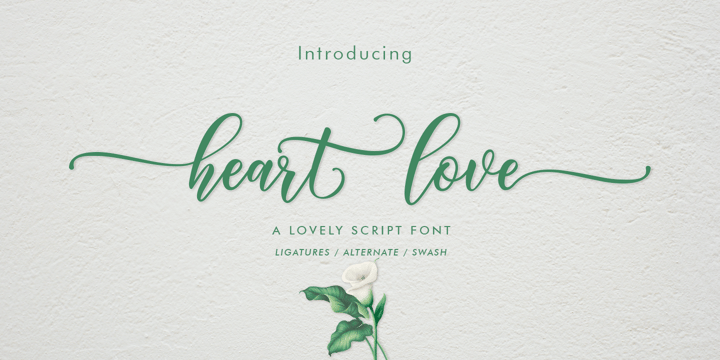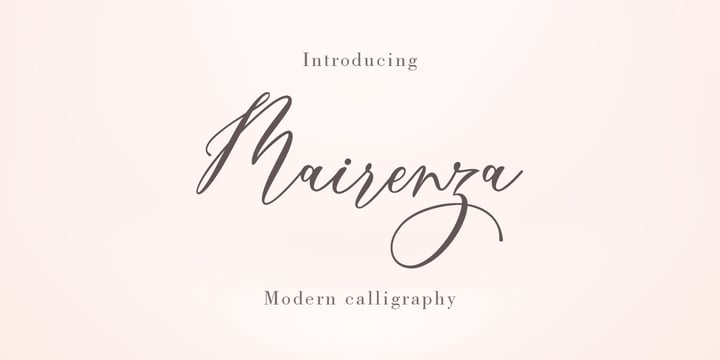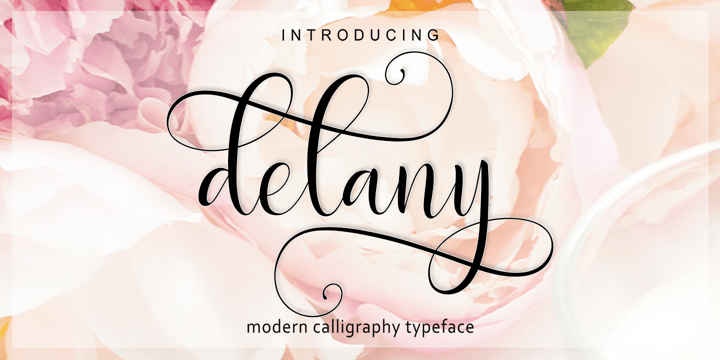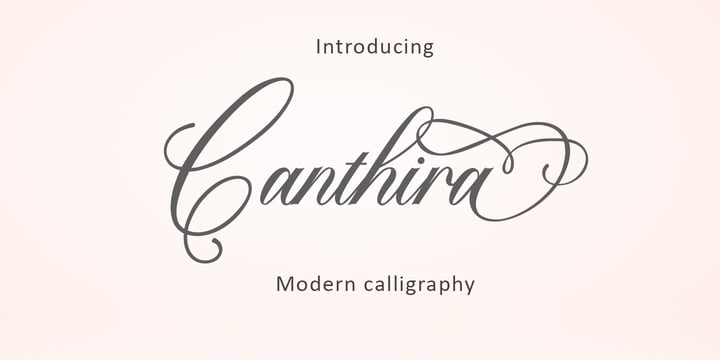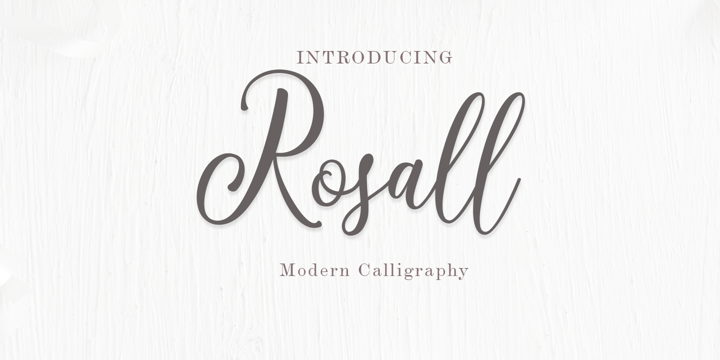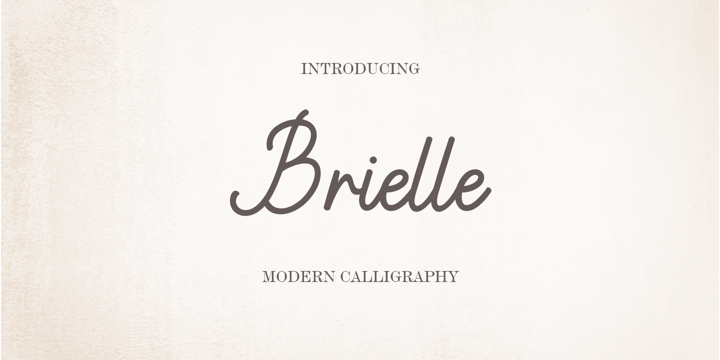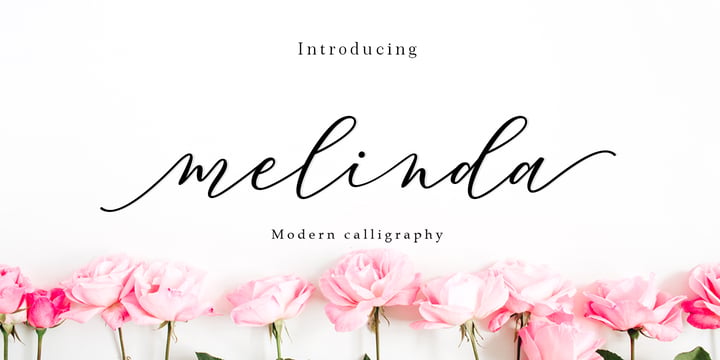
The Crafter Bundle Modern Script Font Collection
The Crafter Bundle – Modern Script Font Collection
Introducing The Crafter Bundle, a carefully curated collection of 45 elegant and versatile script fonts designed to elevate your creative projects. Each font is crafted with a unique handwritten style, combining modern calligraphy with natural flow and artistic charm.
Perfect for a wide range of uses including branding, logo design, social media graphics, wedding invitations, product packaging, and more. This bundle offers a diverse selection—from soft and romantic scripts to bold and expressive lettering—making it a must-have for designers, creators, and entrepreneurs.
Features:
45 unique script fonts
Smooth, natural handwritten styles
Elegant and modern calligraphy look
Whether you're creating a sophisticated brand identity or adding a personal touch to your designs, The Crafter Bundle gives you the flexibility and style you need.
Unlock your creativity and bring your ideas to life with this premium font collection.
The Crafter Bundle – Modern Script Font Collection
Introducing The Crafter Bundle, a carefully curated collection of 45 elegant and versatile script fonts designed to elevate your creative projects. Each font is crafted with a unique handwritten style, combining modern calligraphy with natural flow and artistic charm.
Perfect for a wide range of uses including branding, logo design, social media graphics, wedding invitations, product packaging, and more. This bundle offers a diverse selection—from soft and romantic scripts to bold and expressive lettering—making it a must-have for designers, creators, and entrepreneurs.
Features:
45 unique script fonts
Smooth, natural handwritten styles
Elegant and modern calligraphy look
Whether you're creating a sophisticated brand identity or adding a personal touch to your designs, The Crafter Bundle gives you the flexibility and style you need.
Unlock your creativity and bring your ideas to life with this premium font collection.